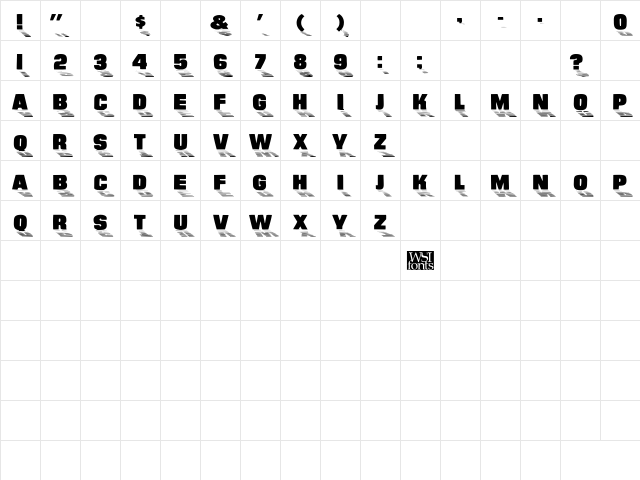
SundownDisplayWide Regular
Design Context for SundownDisplayWide
SundownDisplayWide is built around its visual character rather than neutral utility - its distinctive forms are designed to make an impression at display sizes.
Font Pairing: Pair with a clean neutral sans-serif for body copy to let SundownDisplayWide's character lead without overwhelming the composition.
Pro Tip: Use SundownDisplayWide exclusively at display sizes - it was designed to be seen, not read at length. Let a neutral companion handle body copy.